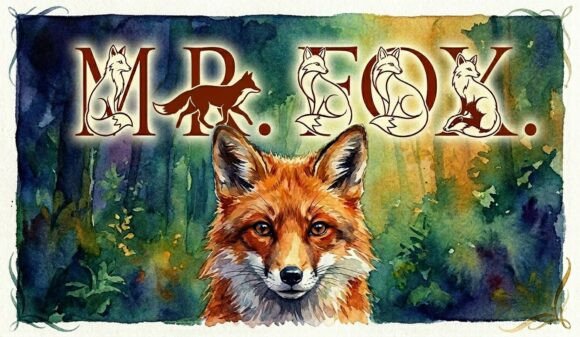
Introduction to Mr. Fox Font
As a designer, have you ever found yourself pouring over a blank page, searching for the perfect font to bring your creative project to life? The blank page stares back, taunting you with its emptiness. But what if you stumbled upon a font that transported you to a world of classic storybook charm? A font that whispered tales of cunning foxes, majestic bears, and delicate woodland creatures? Welcome to the enchanting world of Mr. Fox Font, where the line between typography and illustration blurs.
Mr. Fox Font is more than just a beautifully crafted, ornate serif typeface – it’s a design resource that adds a touch of whimsical elegance and vintage wilderness to your projects. With its high-quality, intricate details and transparent background, this font is a treasure trove of creative possibilities. And the best part? It’s available for free download, making it an accessible addition to any designer’s toolkit.
Key Features of Mr. Fox Font
- High-quality design: Mr. Fox Font is a carefully crafted, high-quality design resource perfect for creative projects.
- Transparent background: This font features a transparent background, making it ideal for use on images and graphics with complex backgrounds.
- Resolution: This font is optimized for high-resolution displays and prints, with a resolution of 300 DPI or higher.
- Unique characteristics: Mr. Fox Font features a unique, hand-drawn style with a mix of bold and delicate lines, making it perfect for creative projects that require a touch of personality.
- Size: Mr. Fox Font includes a range of sizes, from 8pt to 72pt, allowing designers to choose the perfect size for their project.
Honest Review: Mr. Fox Font
As a designer, I’m always on the lookout for high-quality design resources to elevate my creative projects. The Mr. Fox Font is one such resource that caught my eye. Its unique, rustic charm is perfect for projects that require a touch of whimsy.
- ✨ The font’s transparent background makes it incredibly versatile and easy to use.
- ✨ The font’s high-quality design ensures that it looks great at various font sizes and styles.
- ⚠️ The font’s limited character set may be a hindrance for designers who need to typeset complex text.
- ⚠️ The font’s quirky style may not be suitable for all types of projects.
Overall, I’m impressed with the Mr. Fox Font’s unique design and high-quality construction. While it may have some limitations, it’s definitely a valuable resource for designers looking to add some personality to their projects.
Tips for Getting the Most Out of the Mr. Fox Font
Use the Mr. Fox Font on a transparent background to create a stunning visual effect. Experiment with different font sizes and colors to add depth and interest to your design. The Mr. Fox Font is a free download, making it an excellent choice for designers on a budget.
Common Use Cases for the Mr. Fox Font
The Mr. Fox Font is ideal for a variety of creative projects, including logos, business cards, and social media graphics. Its unique design makes it perfect for designs that require a touch of sophistication and elegance. Download the Mr. Fox Font today and take your design to the next level!